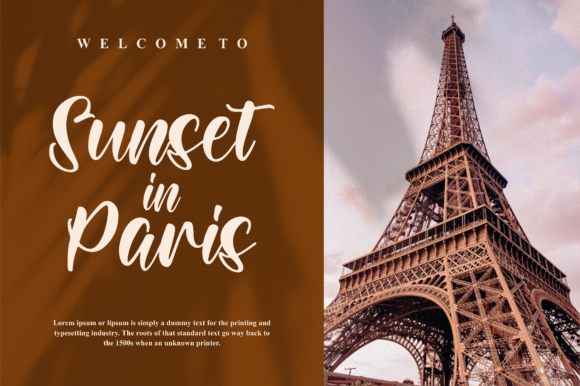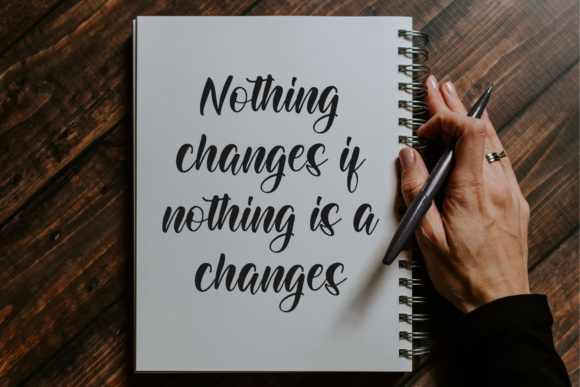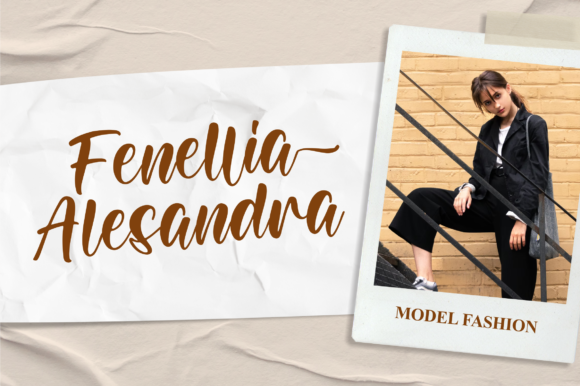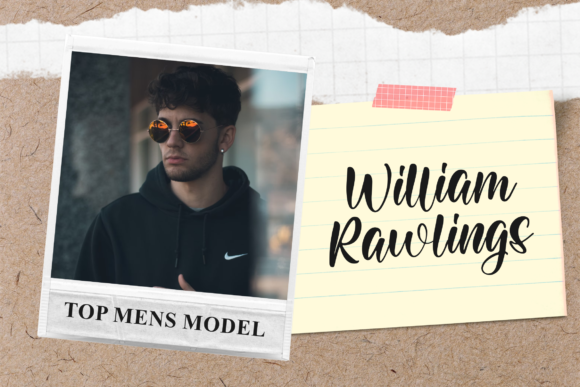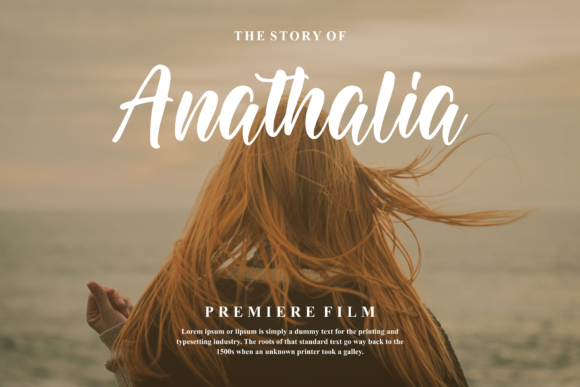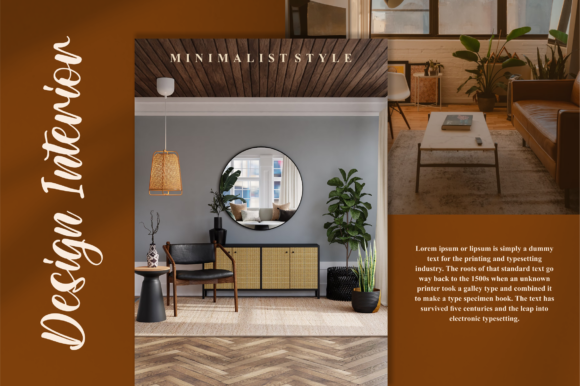
Introducing Beauttya Font: Elevate Your Designs with Elegance
Are you a designer or crafter looking for a font that can add a touch of sophistication and beauty to your projects? Look no further than Beauttya Font, a stunning script font that is perfect for a wide range of applications. From logos and branding projects to homeware designs, product packaging, and more, Beauttya is the ideal choice for anyone seeking a elegant and refined script font.
What Makes Beauttya Font So Special?
Beauttya Font is a gorgeous script font that boasts a unique and captivating style. Its elegant curves and flowing lines make it perfect for adding a touch of luxury and sophistication to any project. Whether you’re working on a logo, a poster, or a product packaging design, Beauttya is sure to impress.
One of the standout features of Beauttya Font is its versatility. It can be used for a wide range of projects, including:
• Logos and branding projects
• Homeware designs
• Product packaging
• Mugs and other promotional products
• Quotes and posters
• Special events and celebrations
The Benefits of Using Beauttya Font
So why choose Beauttya Font for your next project? Here are just a few benefits of using this amazing script font:
• Elegant and refined style: Beauttya Font features a beautiful, cursive script style that adds a touch of sophistication to any project.
• PUA encoded: This font is PUA (Private Use Area) encoded, which means you can access all glyphs and swashes with ease. This makes it simple to customize your text and add unique flourishes to your designs.
• Highly versatile: Beauttya Font can be used for a wide range of projects, from logos and branding to homeware designs and product packaging.
How to Use Beauttya Font in Your Designs
Using Beauttya Font in your designs is easy. Here are a few tips to get you started:
• Pair it with a sans-serif font: For a classic look, pair Beauttya Font with a sans-serif font like Arial or Helvetica.
• Experiment with swashes: With its PUA encoding, Beauttya Font offers a range of swashes and glyphs to customize your text.
• Use it for headlines and titles: Beauttya Font is perfect for headlines and titles, where its elegant style can really shine.
Why Designers and Crafters Love Beauttya Font
Beauttya Font has quickly become a favorite among designers and crafters, and it’s easy to see why. Here are just a few reasons why this font has gained such a loyal following:
• Unique and eye-catching style: Beauttya Font offers a distinctive and captivating style that sets it apart from other script fonts.
• High-quality design: This font has been carefully crafted to ensure that it looks great in any context.
• Excellent value: With its versatility and range of uses, Beauttya Font offers excellent value for designers and crafters.